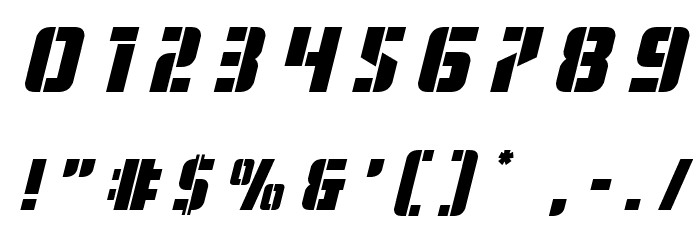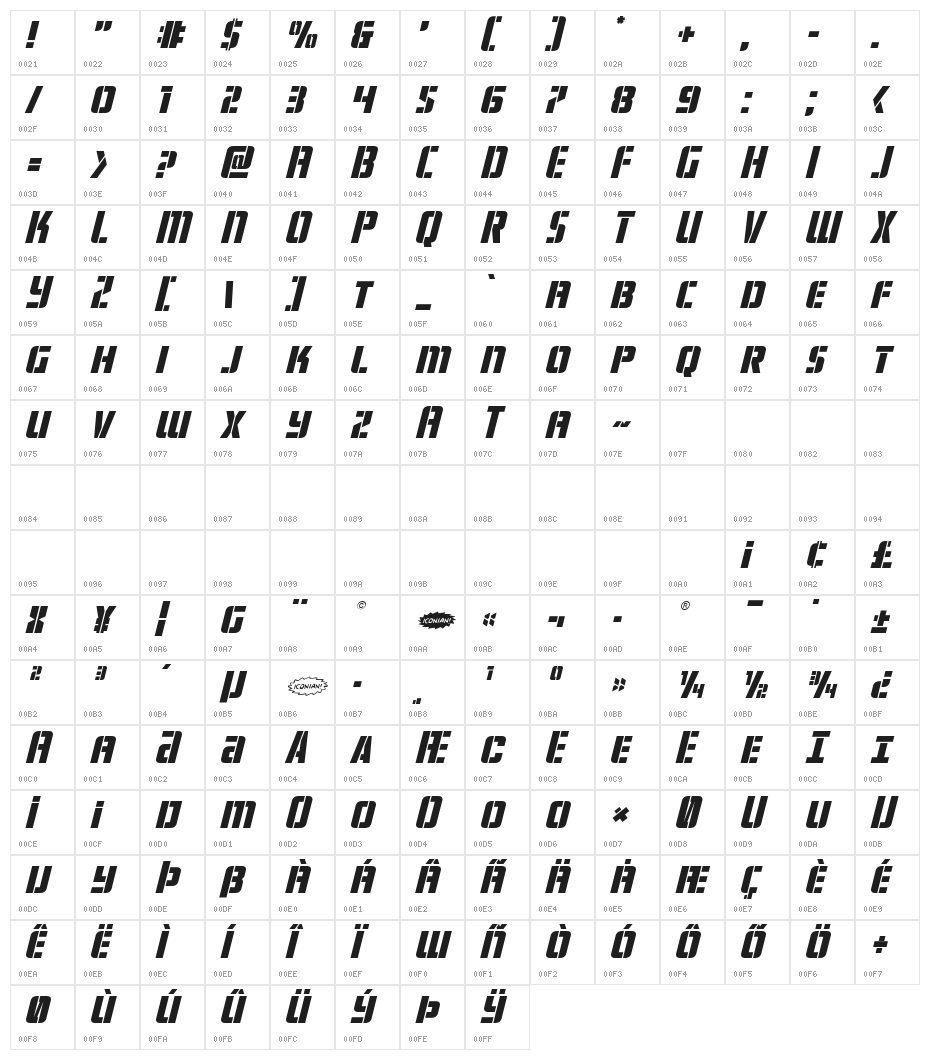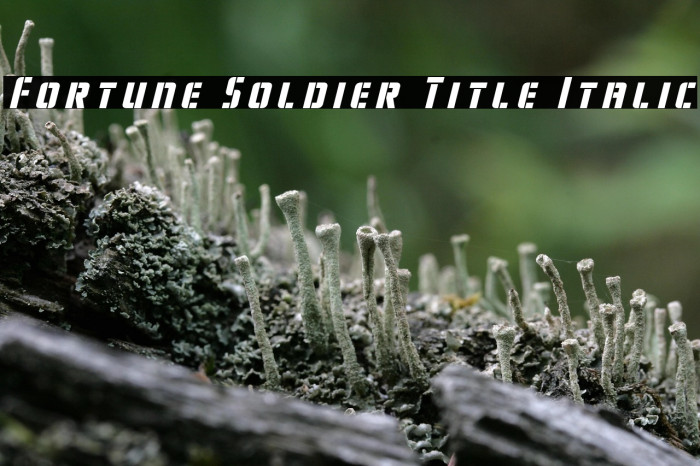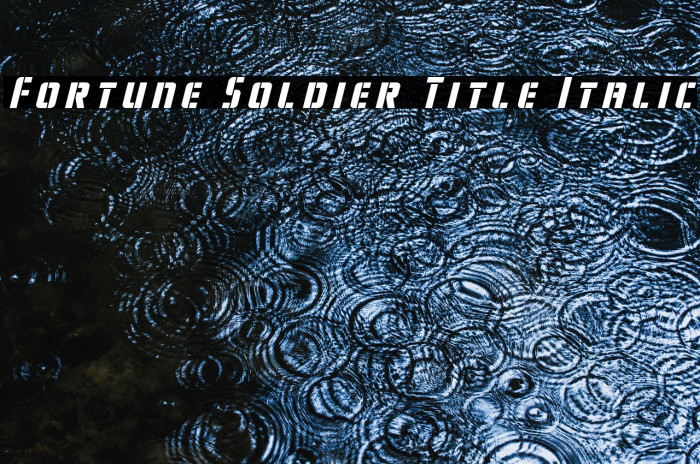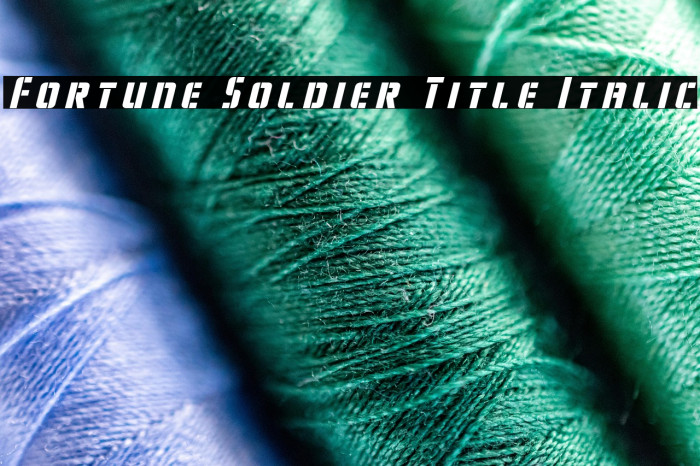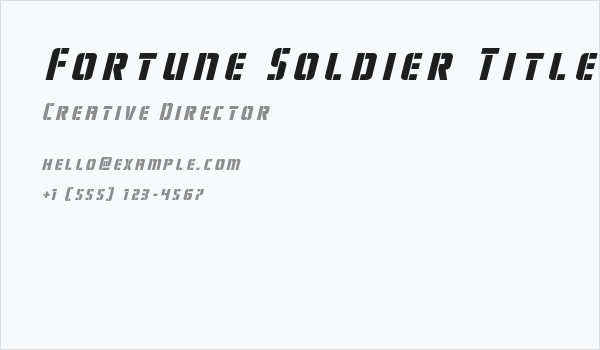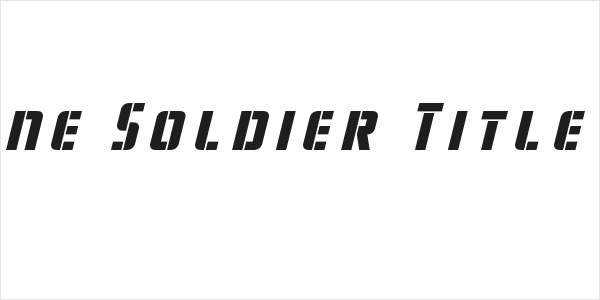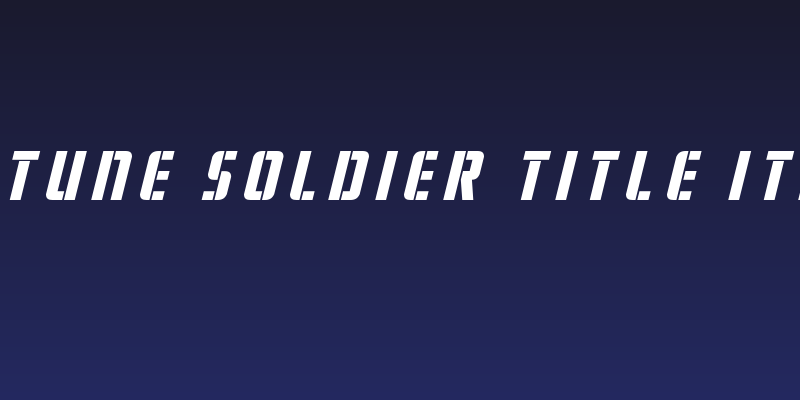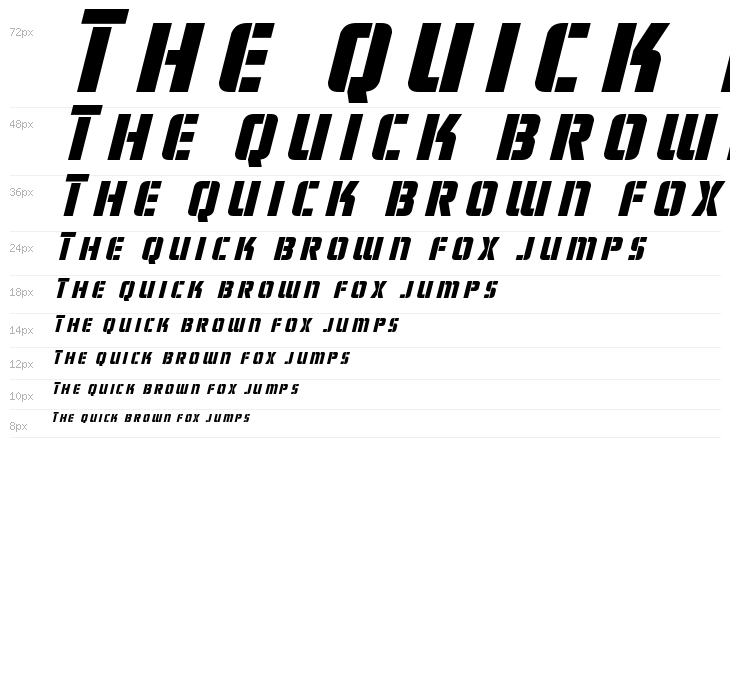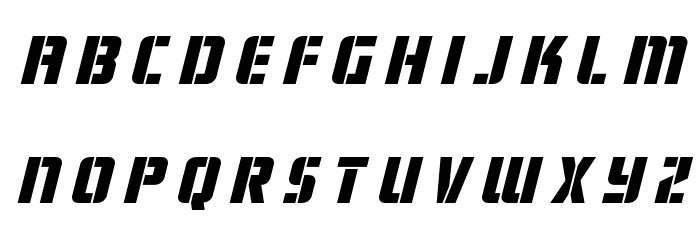
Fortune Soldier Title Italic Font
Fortune Soldier Title Italic Description
This font features a bold, italicized style with a distinct stencil-like appearance. The characters are constructed with sharp angles and geometric shapes, creating a futuristic and industrial feel. The uppercase and lowercase letters maintain a consistent slant, enhancing the dynamic and energetic look. The numbers and special characters follow the same design principles, ensuring uniformity across the typeface. The font's boldness and unique cut-out sections make it highly suitable for attention-grabbing designs.